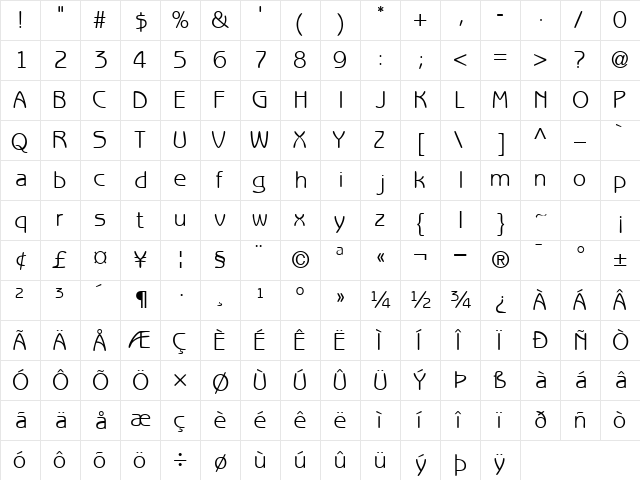
ExpressDecoGothicLightSSK Regular
Design Context for ExpressDecoGothicLightSSK Typeface
ExpressDecoGothicLightSSK has the quiet confidence of well-executed sans-serif typography: versatile, unobtrusive, and dependable at any size. Its slender proportions lend an understated elegance to any composition.
A natural fit for high-end product packaging, luxury brand identities, and refined web typography.
Font Pairing: Pair ExpressDecoGothicLightSSK with a medium or bold serif for headlines — the weight contrast creates an elegant, high-end feel.
Pro Tip: Use ExpressDecoGothicLightSSK with generous tracking and line-height for the most luxurious effect — light sans-serifs reward spacious, considered layouts.